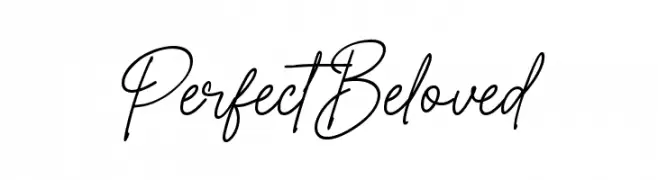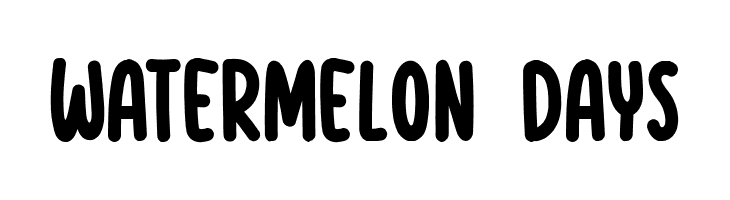
A playful, bold font with geometric shapes and a quirky style.
A bold, decorative font with a 3D effect and halftone pattern.
A bold, decorative font with a three-dimensional effect and geometric structure.
A playful, bold, and rounded font with a hand-drawn feel.
A charming and elegant script font with flowing, interconnected letterforms.
A modern, monospaced font designed for clarity and readability in coding.
An elegant, flowing script font with graceful loops and swashes.
A charming and flowing script font with elegant, cursive letterforms.
A cursive script font with elegant, flowing strokes and a handwritten appearance.
An elegant script font with whimsical flourishes and decorative elements.